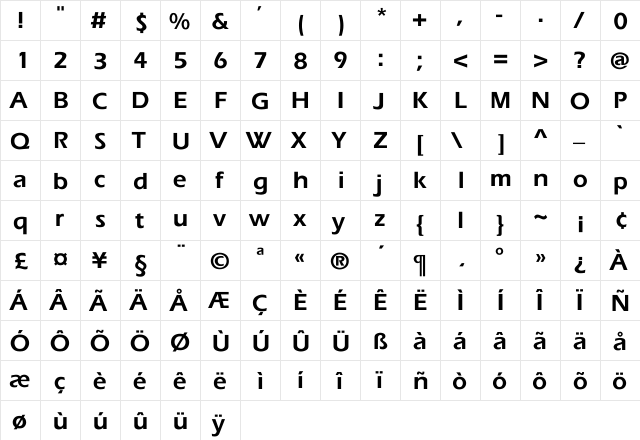
ItcEras-Demi-Normal Regular
Design Context for ItcEras-Demi-Normal Typeface
ItcEras-Demi-Normal takes a measured approach to typography — its balanced proportions and neutral character make it a reliable workhorse for both digital and print work.